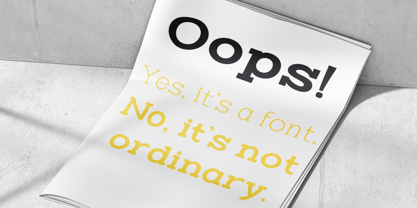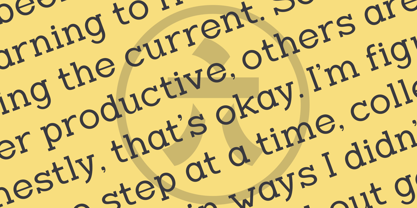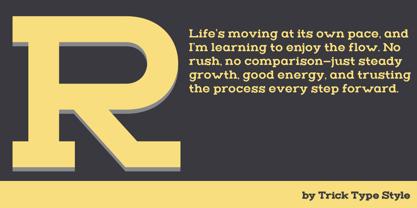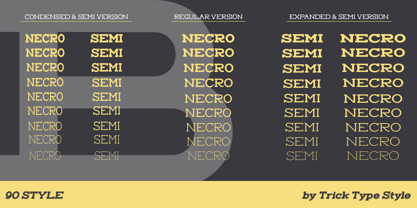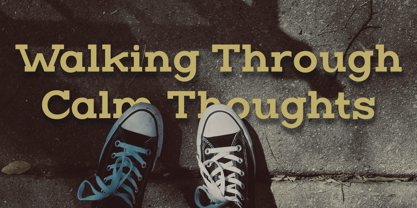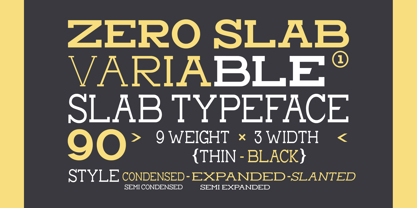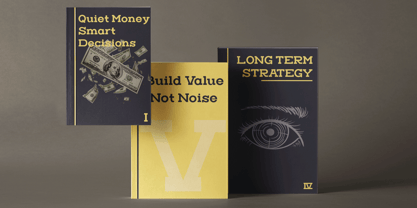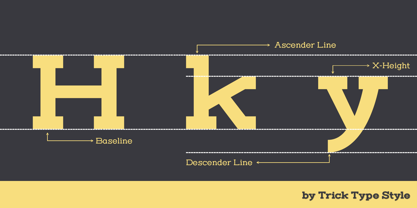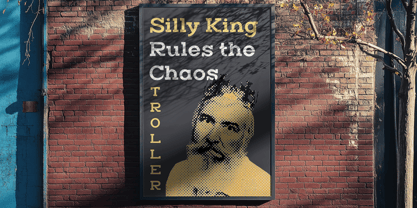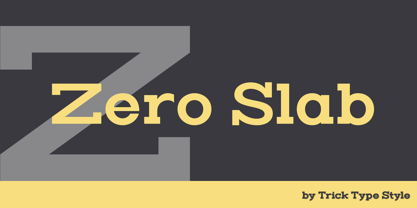
Zero Slab
by Trick Type Style
The Zero Slab Font Family was designed by Rizki Ramadhan and published by Trick Type Style. Zero Slab contains 90 styles and family package options. More about this family
Zero Slab is a modern slab serif display typeface crafted to deliver a strong, clean, and confident visual presence. Built on solid proportions and crisp slab serif details, this font balances authority with refined elegance, making it both powerful and versatile. Designed with clarity in mind, Zero Slab performs exceptionally well across a wide range of applications—from bold branding systems and impactful headlines to editorial layouts, posters, and contemporary visual identities. Its sharp structure and disciplined rhythm ensure excellent readability while maintaining a distinctive character that stands out in modern design contexts. Whether used as a statement typeface or a supporting display element, Zero Slab brings a sense of confidence, professionalism, and modern sophistication to any project.
Designers: Rizki Ramadhan
Foundry: Trick Type Style